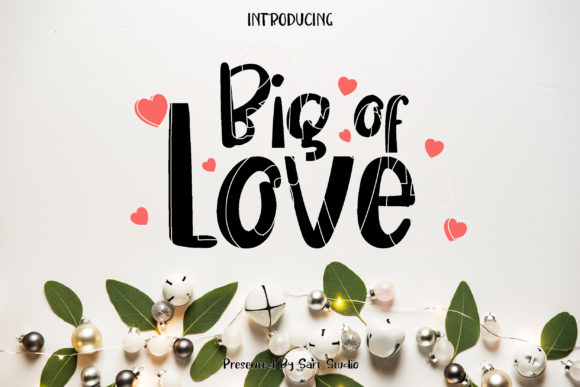
The Big of Love Font: A Game-Changer for Creative Projects
Have you ever been in the middle of a design project, and suddenly, you’re stuck on finding the perfect font? I recall a particularly frustrating experience while working on a client’s wedding invitation. The design was almost complete, but the font just wasn’t right. That’s when I stumbled upon the Big of Love font, and it completely transformed my project.
Big of Love embodies fun, quirkiness, and authenticity. This enchanting handwritten font has a way of turning any creative idea into a true standout. In this article, we’ll dive into the world of Big of Love, exploring its features, how to use it, and what makes it so special.
An Honest Review of Big of Love
What I Love About Big of Love ✨
- Its unique, handwritten style that adds a touch of personality to any project ✅
- The variety of OpenType features, glyphs, and stylistic alternates that allow for endless creativity 🌈
- Its versatility – perfect for a wide range of projects, from invitations to social media graphics 📱
- The way it pairs well with both bold and delicate design elements 💕
- Some users might find the font a bit too playful for very formal projects ⚠️
- It may not be the best choice for very long blocks of text, as it can be a bit hard to read 📖
The Backstory of Big of Love
The story behind Big of Love is one of passion and creativity. The font was designed by a talented type designer who wanted to create a font that would bring joy and personality to creative projects. Inspired by the beauty of handwritten letters, the designer poured their heart and soul into crafting a font that would be both fun and authentic.
Q: What makes Big of Love so special?
A: Big of Love is special because of its unique, handwritten style and its versatility. It’s perfect for a wide range of projects, from invitations to social media graphics.